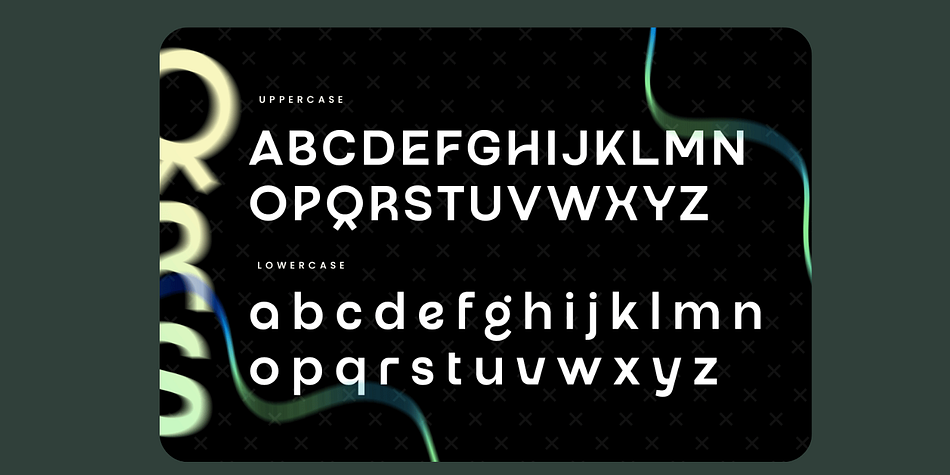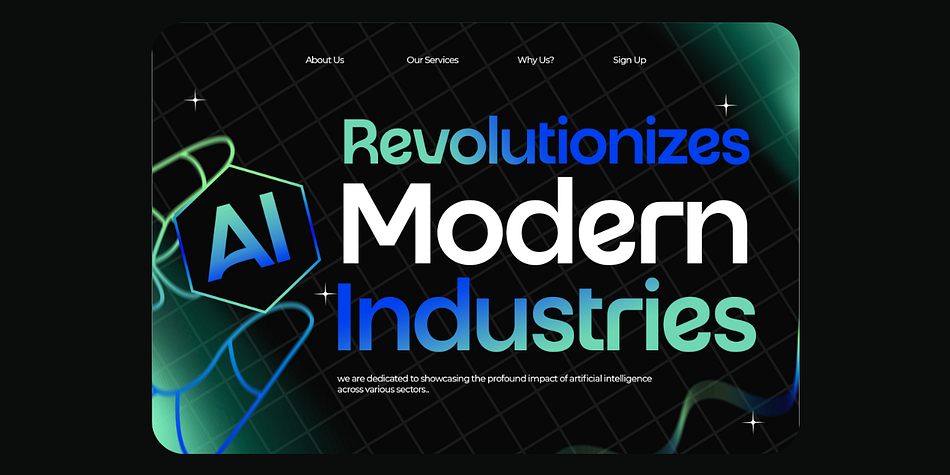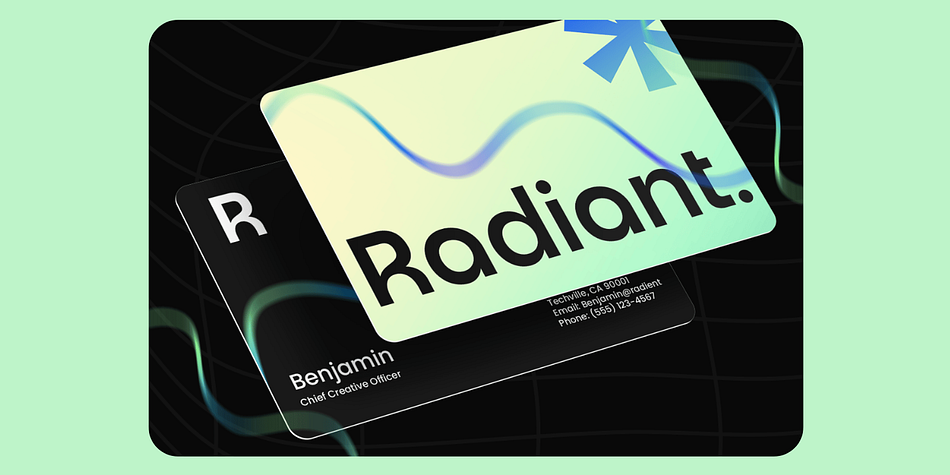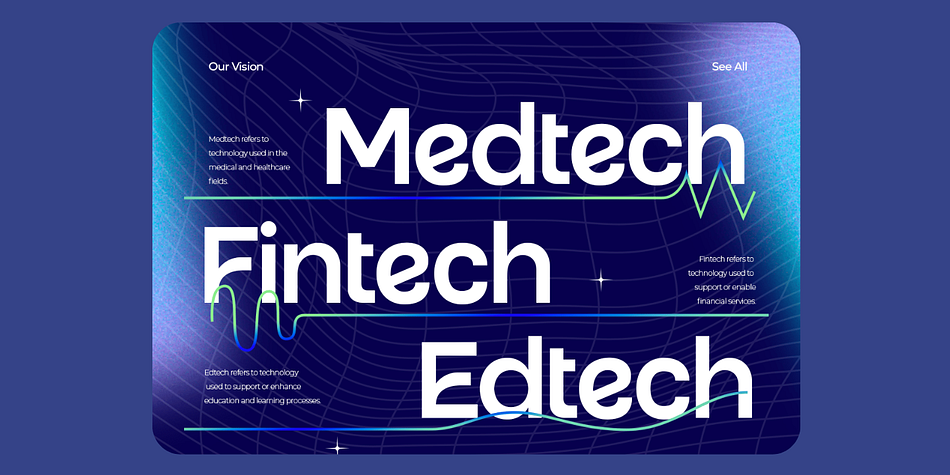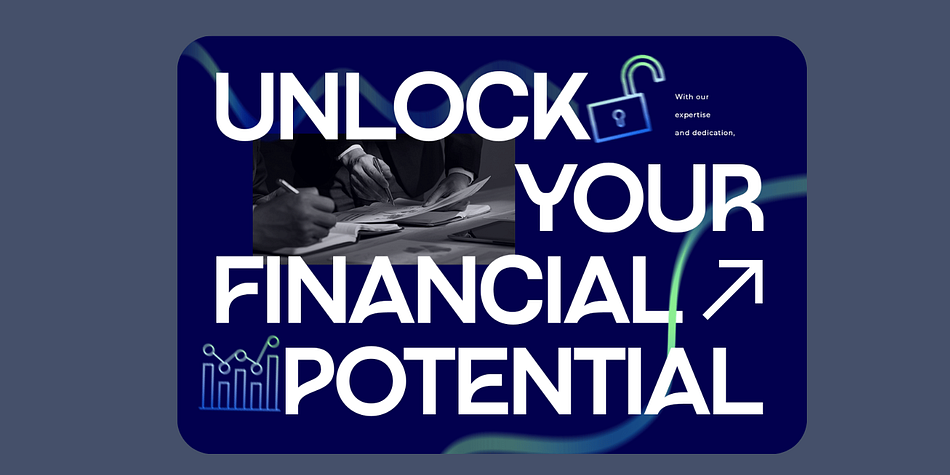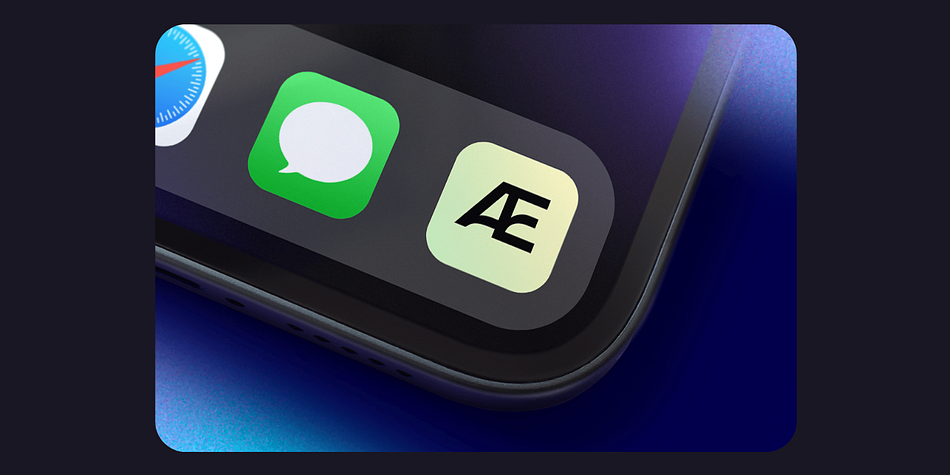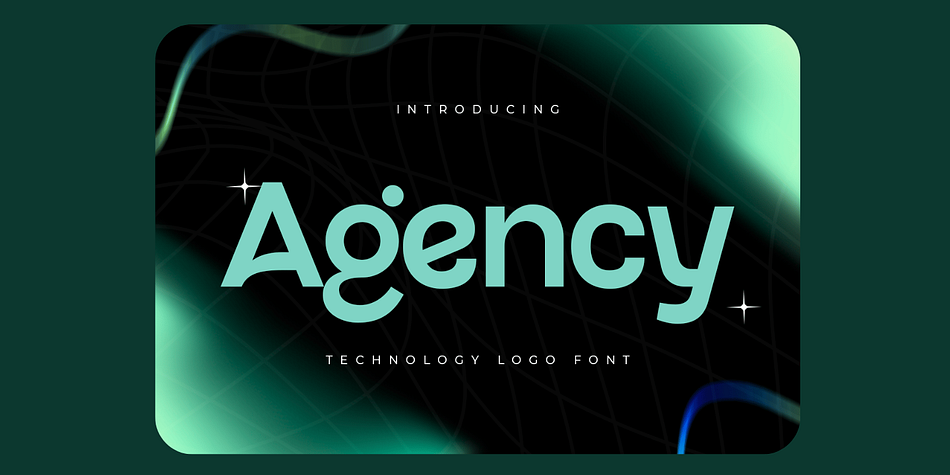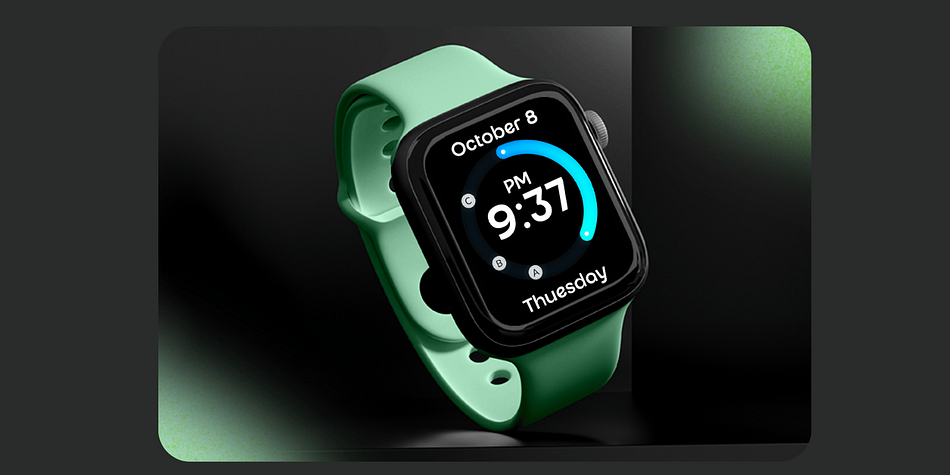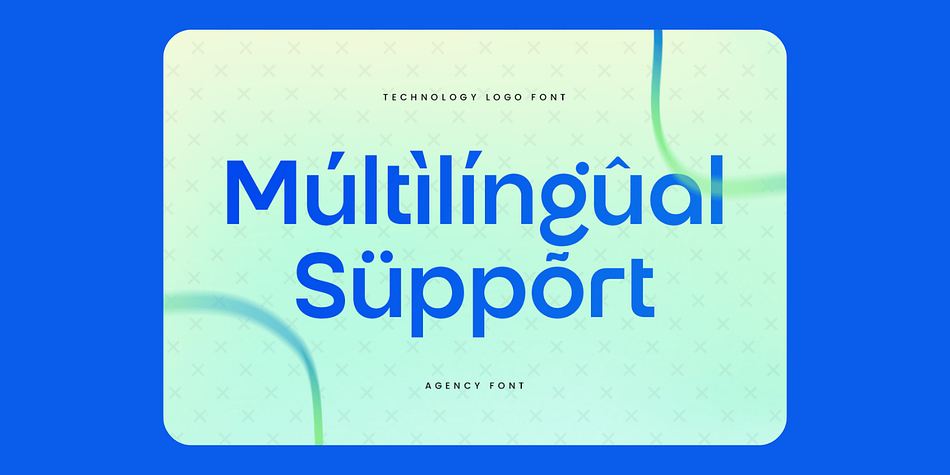
Agency
Agency is a sans serif font family published by Fontistry.
Agency – Technology Logo Font
Agency is a sleek, modern typeface tailored for the technology and business sectors. Crafted with precision, this font blends futuristic aesthetics with professional clarity—making it the ideal choice for logos, websites, branding materials, and corporate identity designs. Whether you’re launching a tech startup or revamping a corporate image, Agency empowers your brand with a clean, bold, and innovative look.
Inspired by cutting-edge design and forward-thinking brands, Agency delivers a distinct style that elevates your message and ensures lasting visual impact. Its versatile forms and technical edge make it a powerful asset for modern creators.
✿ Key Features:
Futuristic & Professional Style: Designed to combine modern tech with visual sophistication.
Complete Character Set: Includes uppercase, lowercase, numbers, punctuation, and symbols.
OpenType Features: Enhanced with stylistic options and typographic precision.
Multilingual Support: Compatible with a broad range of languages for global reach.
Highly Versatile: Perfect for logos, branding, UI/UX design, business cards, and digital content.
✿ Perfect For:
Technology Startups: Build a cutting-edge identity with clean, futuristic typography.
Corporate Branding: Convey innovation and professionalism in one visual tone.
App & Web Design: Ensure digital readability with sharp, modern forms.
Marketing & Advertising: Deliver strong, standout messaging with style.
Elevate your branding with Agency – Technology Logo Font, a modern typeface designed to meet the demands of today’s tech-forward businesses. Power your visuals with innovation and sophistication. ????????